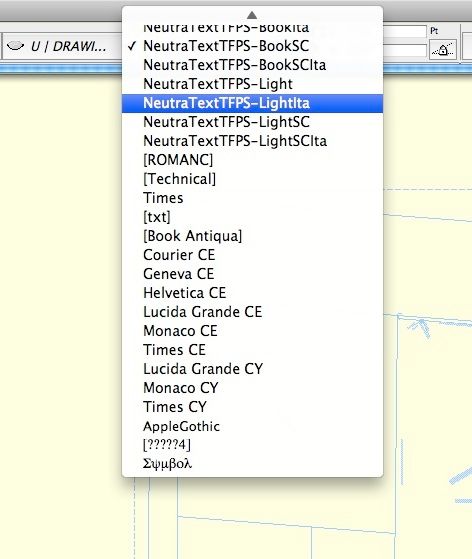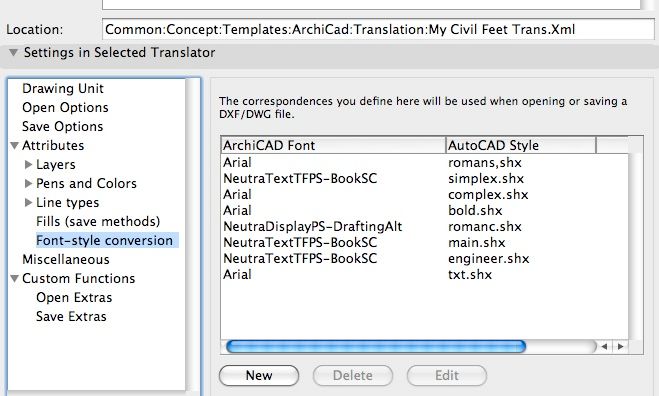
Simple Font Conversion DWG > AC; Can it Work?!
Finally decided to map the fonts (1st screen shot) coming from DWG to Archicad and avoid a long list of bracketed font names in Text Font drop window (2nd screen shot).
After the initial Skip All conformation fonts are not converted.
They default to an Apparent Arial font, even-though my default font conversion is not Arial!
What am I missing here?
Missing fonts
The background problem is that this process is very sparsely - and erroneously - documented. The Help files are better than the Reference Guide, you might check that.
Also, Autocad nowadays uses TrueType fonts by default for MTEXT entries (that is, More Than one line of tEXT 😉 This means that Autocad installs all its standard fonts in both .shx and TT formats in Windows. (The TT fons reside in Window's font folder)
Since MacOSX can utilize any Windows TrueType font like its own, this reduces the problem. I for one have the TrueType versions of all Autocad's standard (shx) fonts installed. You can get them from any Autocad user or by installing Autodesk's free DWG viewer (Windows only - use BootCamp on Mac). This should eliminate most needs for font mapping.
I really can't say what's happening in your case.
I think that Archicad on the Mac defaults to Geneva when it can't find the target font it wants. You can change that in the Miscellaneous section of the DWG translator setup. It looks like Arial (which is a rip-off of Geneva, which in turn is a rip-off of Helvetica).
I would guess there might be some small error in the font naming on either side of the conversion table. This is particularly problematic with PS (PostScript) fonts, since for each font they come in styles (bold, italic etc) who reside in separate files. TrueType fonts have all styles in one file.
Also, I'm not completely sure about what Autocad 'styles' mean as opposed to 'fonts'. I notice your font names on the Autocad side are complete with file name extensions .shx You might try to just remove the extensions, since if your DWG has font mappings to TT fonts, they would not work. And start by having only one-to-one mappings to isolate the problem.
Then try setting the conversion table in your translator to some other font that you've got. If you get it to work that way, it's your font that's the issue. You might try getting a TrueType version of your Postscript target font and try that instead. There are PS to TT converters out there, Google is your friend.
There are other issues that might affect this as well.
a) As you might have noticed, Archicad only fully respects your translator's settings when you Merge or Xref a DWG. If you Open it or Place it as a Drawing, Archicad doesn't give a shit for your carefully customised translator tables, even if you've set them in the default translator. I've only got very incomplete and unsatisfactory explanations from GS for this. It seems that the DWG conversion department at GS doesn't care about what the Archicad user in want of good controllable communications with Autocad users need. That the default translator should work regardless of how you import your DWG is beyond their horizon. So only Merge or Xref for the time being.
b) Also, in your Add-Ons folder, you've got a file called XReadCfg.txt.
(It was last changed the 6th of Sept 2004. It's older than the one I got with Archicad 9, but not as old as the one I got with Archicad 10, which is from 1999. My Archicad 7 is from 2002, so I guess that would be about Archicad 5 - I haven't kept older versions installed so I'm not sure. Didn't someone brag about Archicad being "completely rewritten' by Archicad 8? )
Whatever, this file is supposed to rule the default font conversion. You might try to edit it. N B that I guess explicit settings in your translator should override the settings in this file. However, I have serious doubts that this file works. Many of it's options simply don't apply anymore - they are ancient relics from the Classic Mac OS's times.
c) So for the last option: In the Miscellaneous section of the DWG translator setup you can set a "Font Conversion File: Even when one-by-one font-to-style matching is possible, a conversion dictionary may be necessary for Font Name conversion." to quote the Help file.
It also says: "A default version of this dictionary is installed during ArchiCAD installation. It is country- and platform-dependent but otherwise standard. You may wish to duplicate and alter the default dictionary."
So I went searching for this file. By the help of GS local Swedish support (they are very helpful) I found out that the default dictionary mentioned is in fact the Xreadcfg file mentioned above! Just one snag, though: The Help text says: "you can define a Font Conversion File (it is a file with *.xml extension)". So my efforts to edit the Xreadcfg.txt file didn't help much, because Archicad refused to let me select it in the Miscellaneous setup!